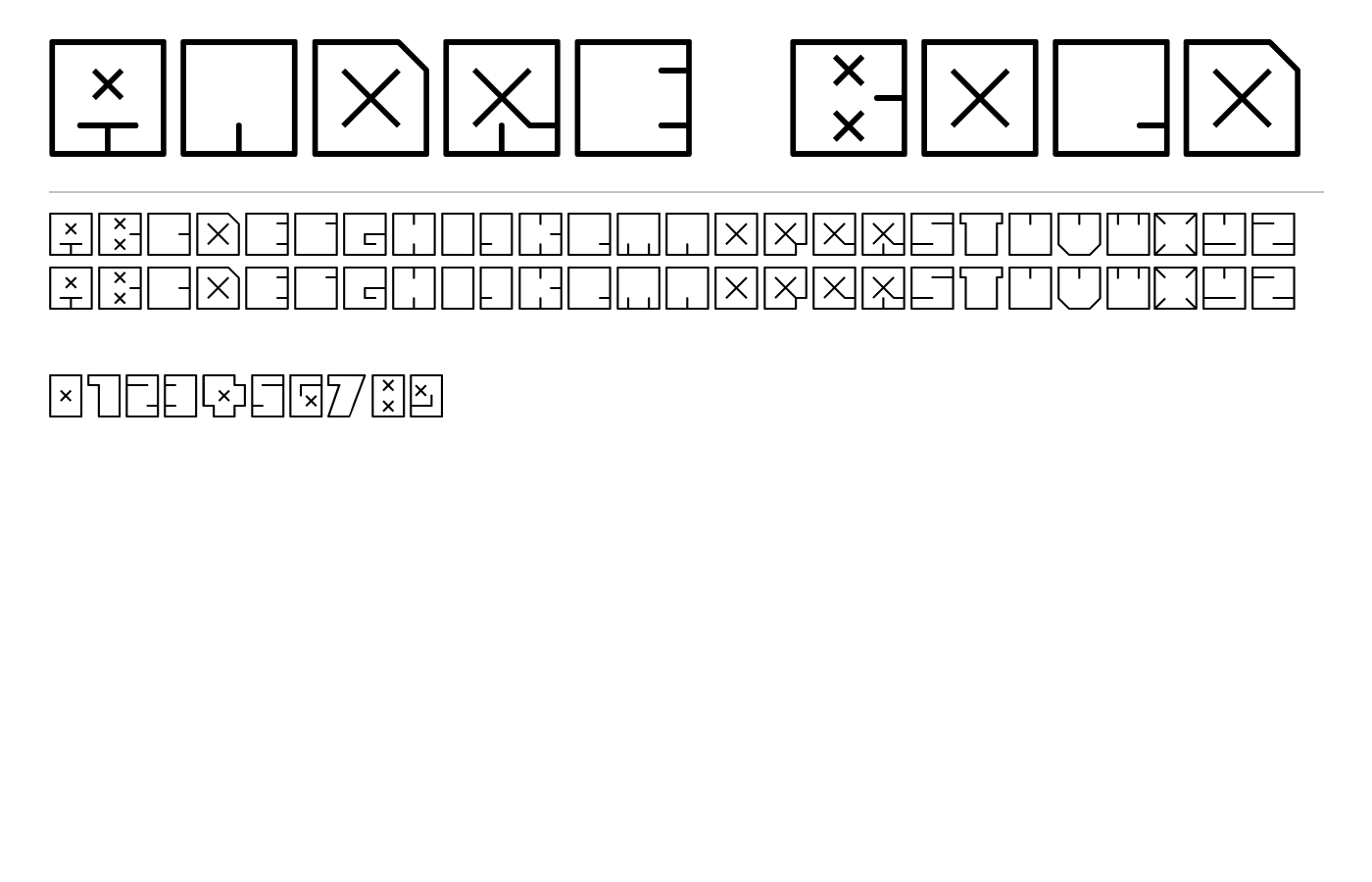
Andrefist is a highly geometric, monospace font characterized by uniform line weights, square shapes, and minimalist strokes that create a futuristic and tech-inspired look. Its blocky, grid-based design with unique enclosed forms and distinct angular corners makes it ideal for modern digital interfaces, coding environments, or avant-garde branding seeking a clean, mechanical vibe. This font excels in display use where its striking and unconventional shapes can stand out and convey a sense of innovation and precision.
andrefist Font